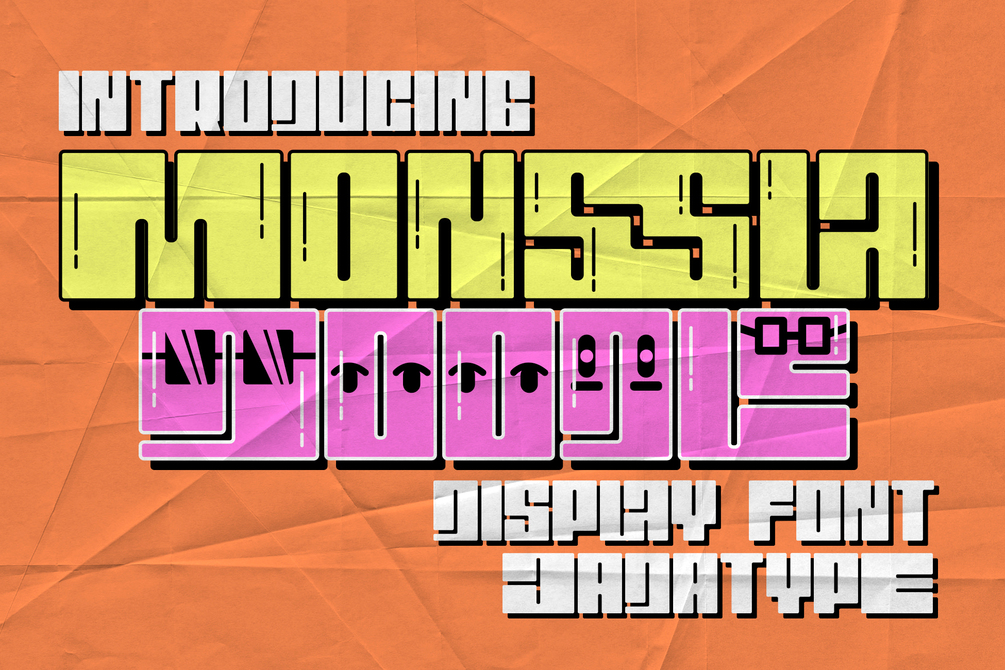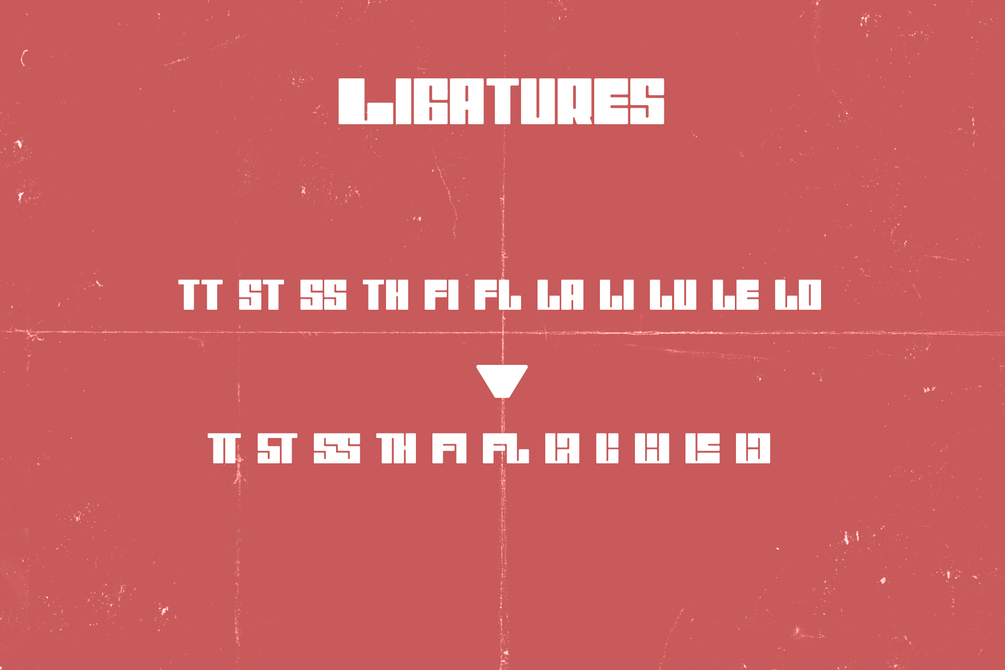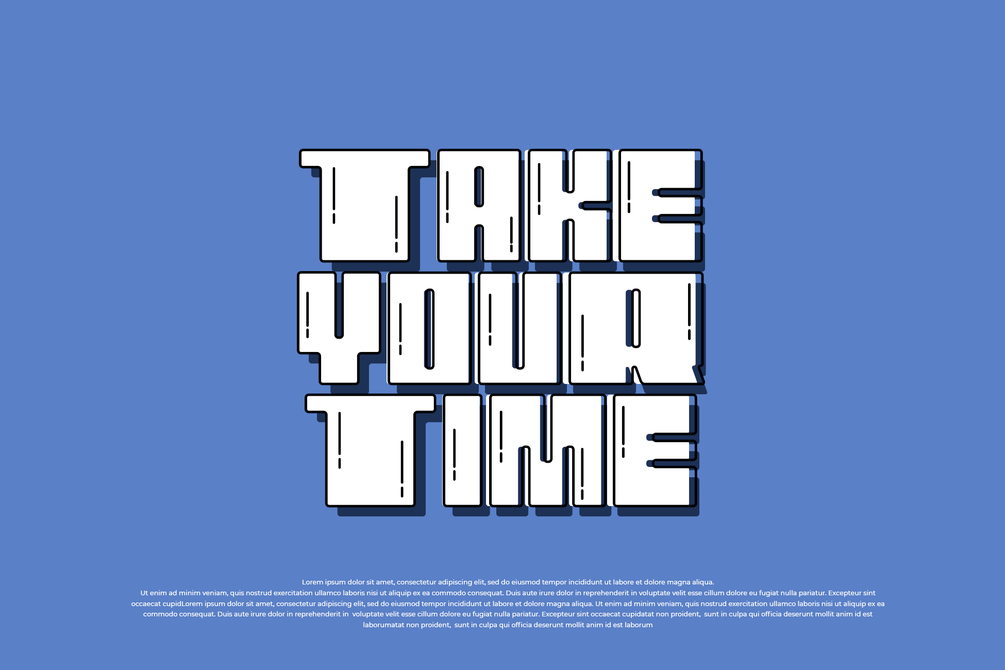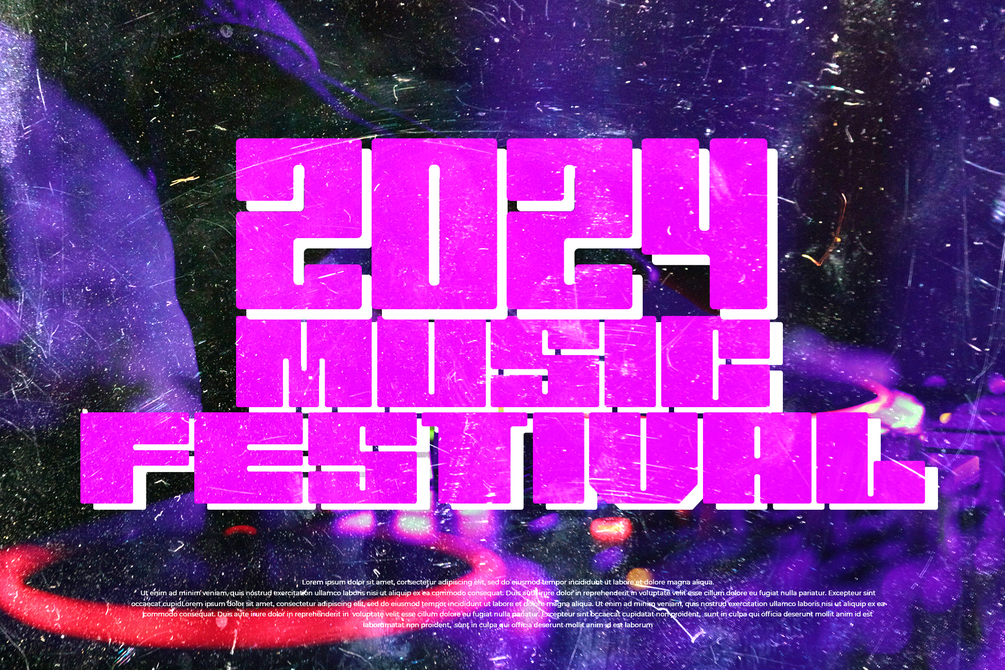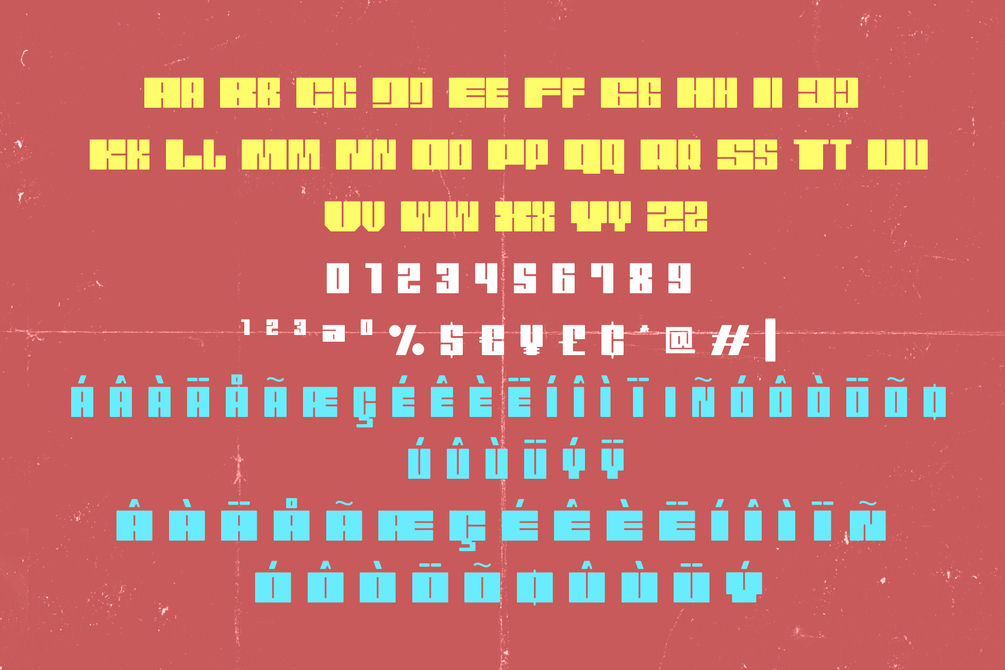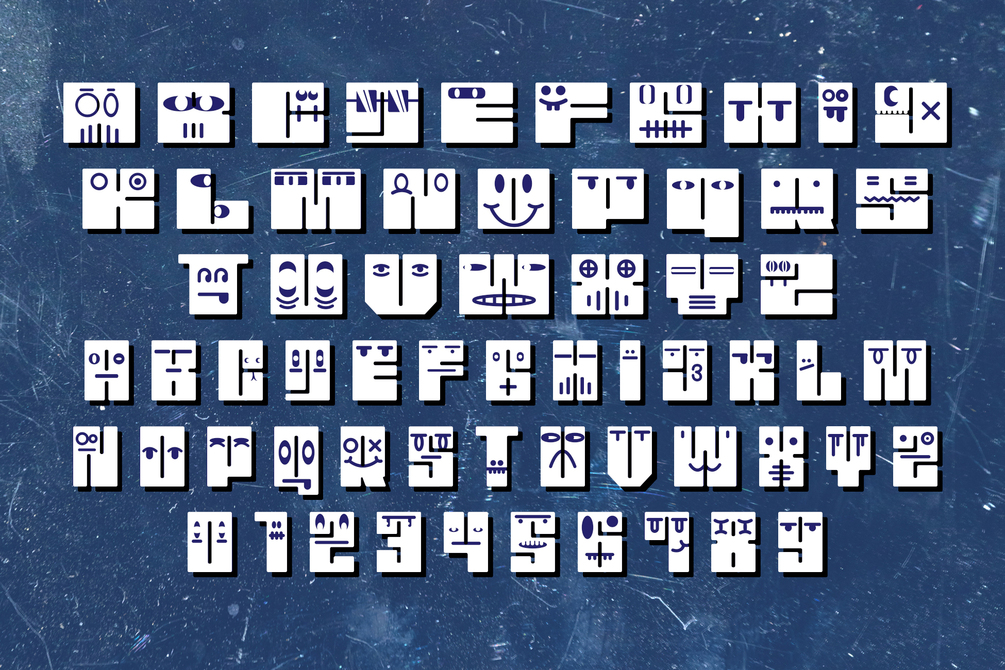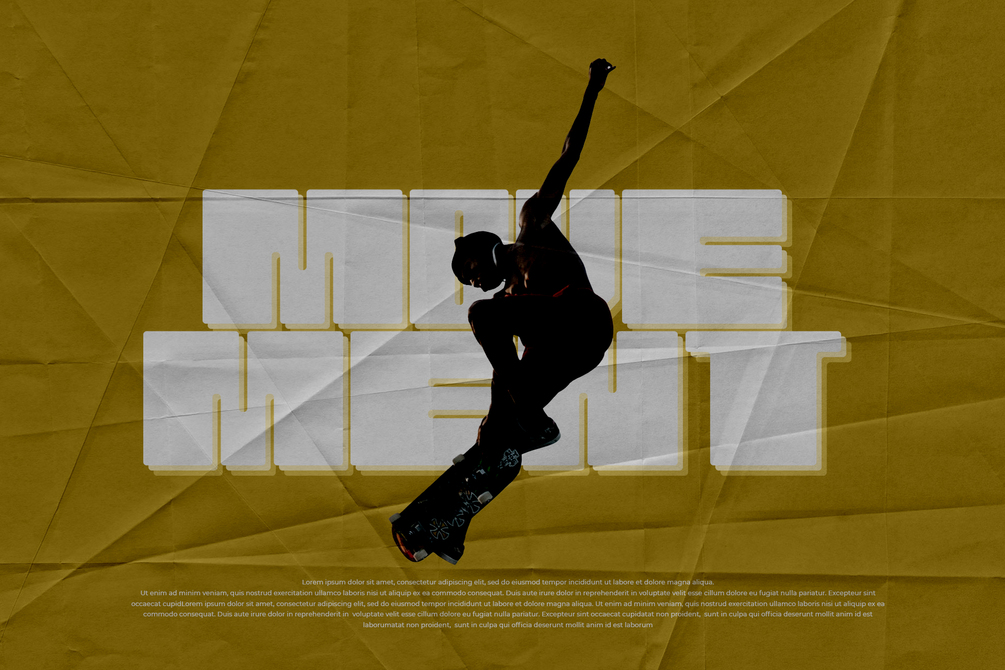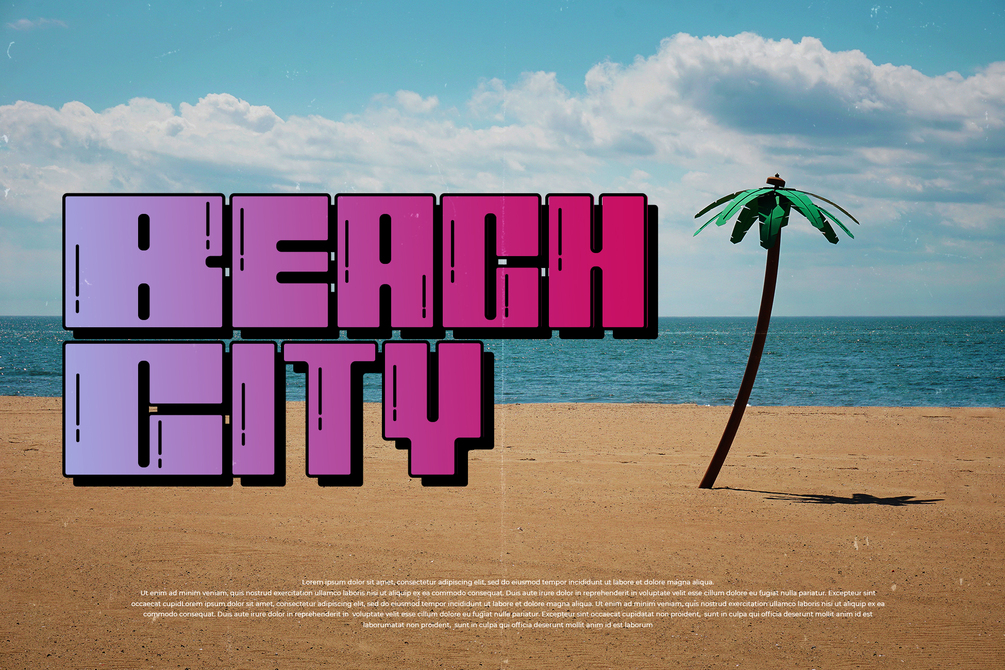
Monssla Font
Monssla is a display font that comes with a block bold style. suitable for posters, tshirt, branding, social media, and so on. contains standard English letters, numbers, punctuation, and several accents that support multilingualism.
• Regular, Outline & Doodle